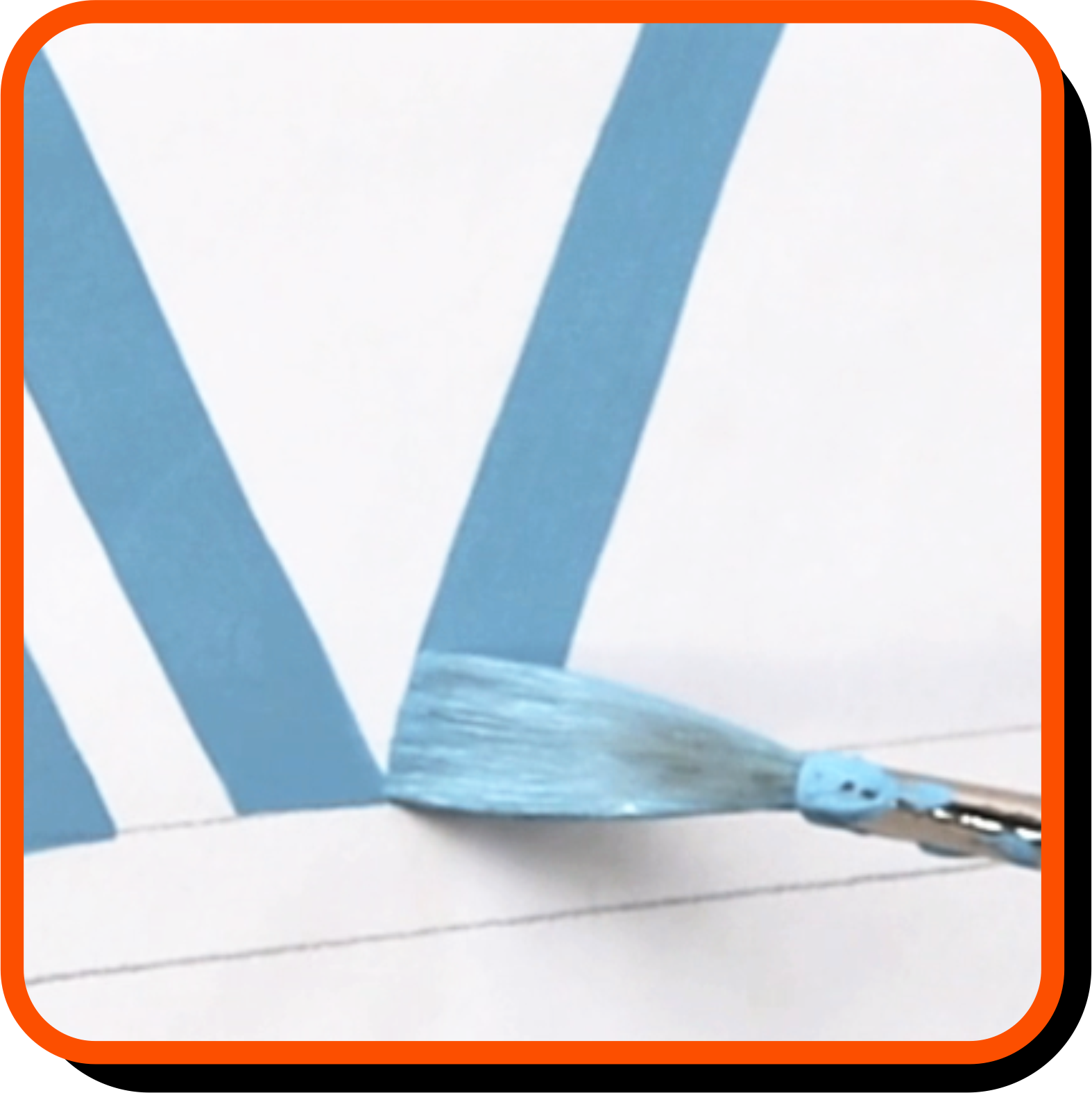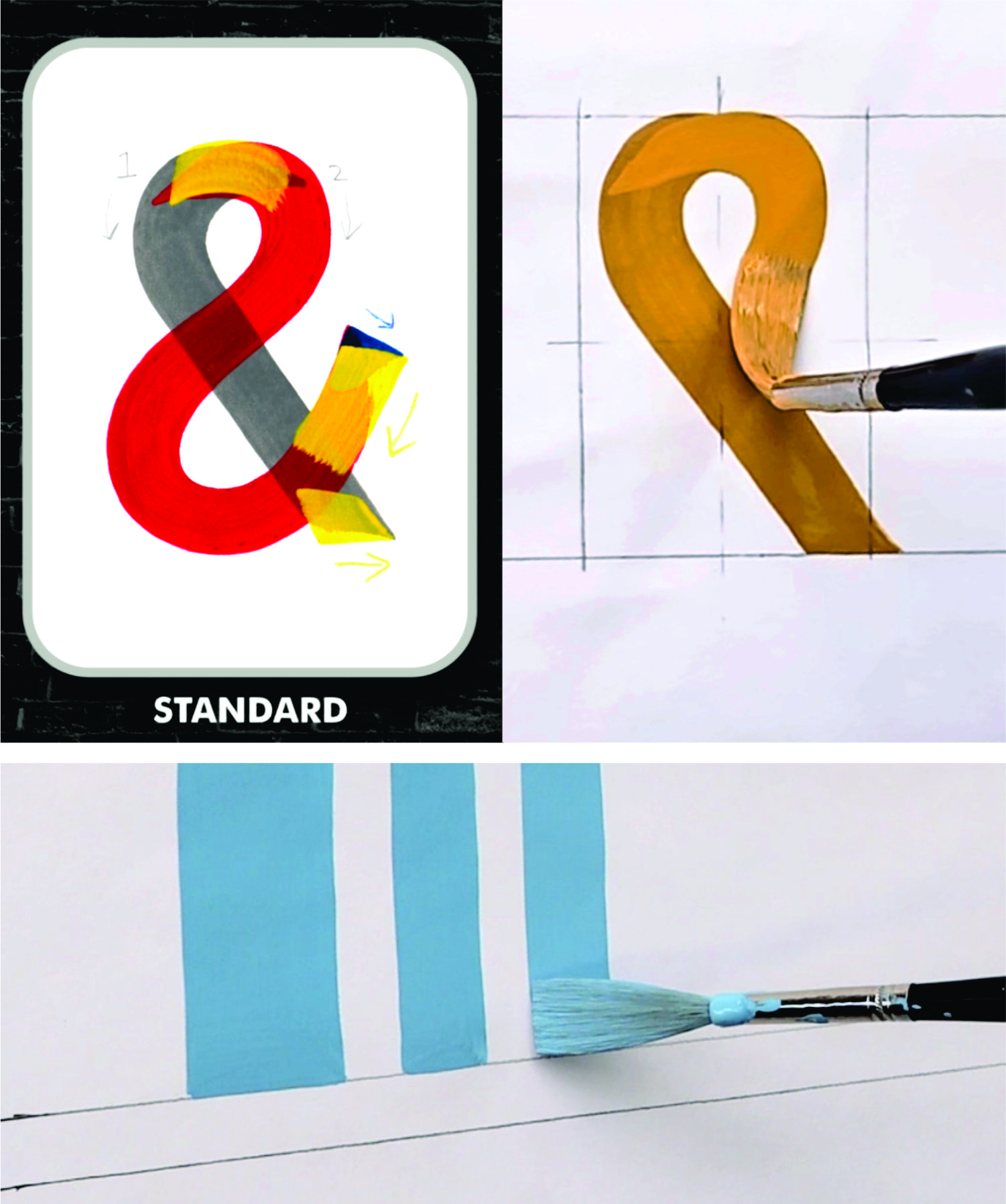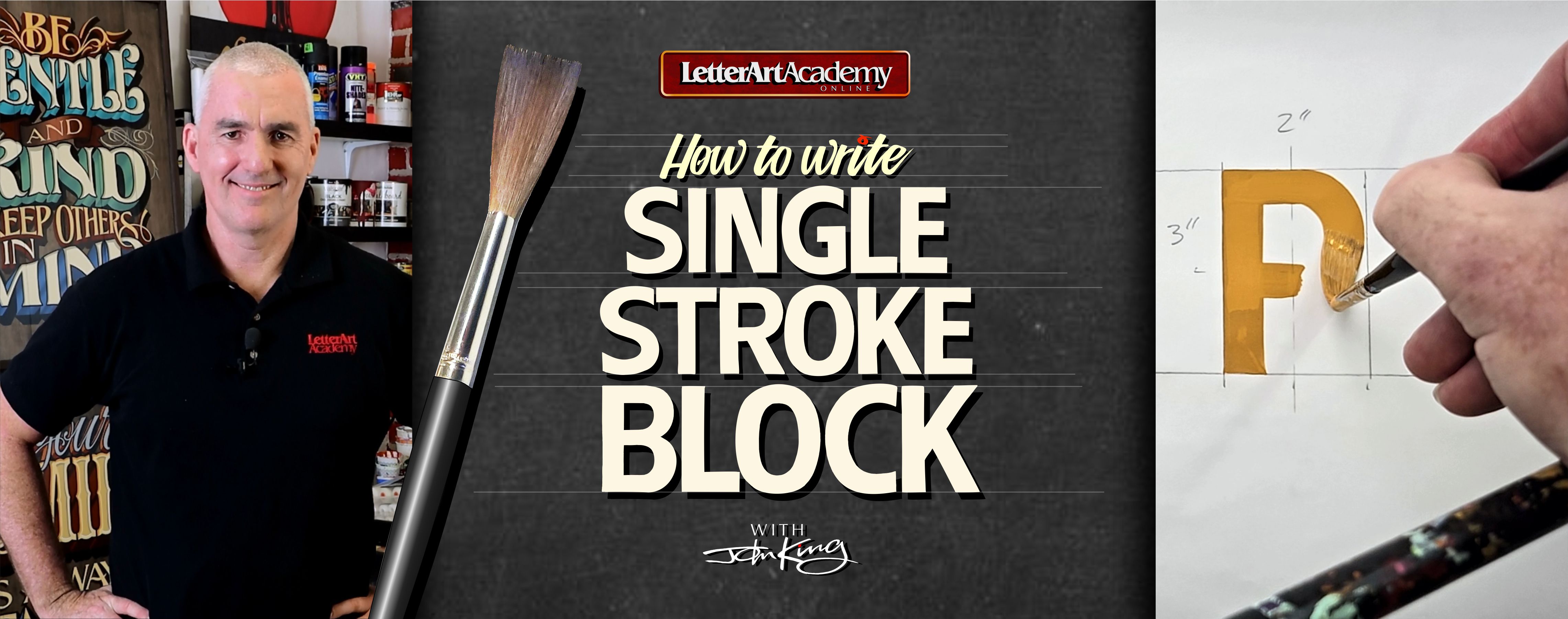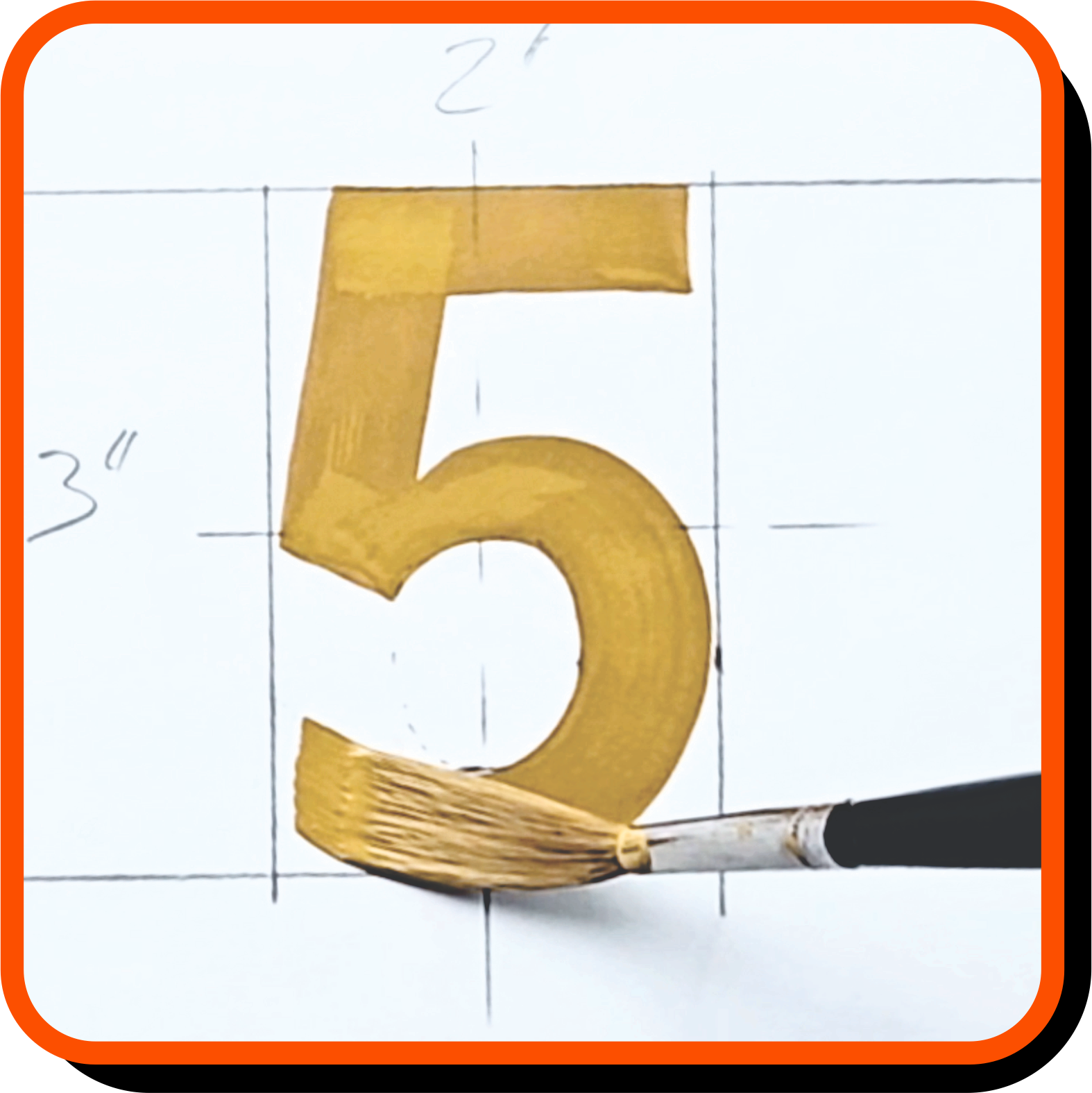
LEARN TO WRITE A TRADITIONAL SIGNWRITER'S SINGLE STROKE BLOCK LETTER ALPHABET.
CAPITALS, NUMERALS and the Ampersand with a focus on Brush Techniques and Letter Structure.
The ability to write Single Stroke Block Lettering is the cornerstone of a signwriter's skillset.
"How to Write Single Stroke Block" is designed for Signwriters and Lettering Artists who have worked on their Basic Signpainter's Brush Skills and are ready to take the next step in learning to write a Traditional Signpainter's Single Stroke Block Letter Alphabet.
Learn the tricks to create each Capital Letter, Numeral and Ampersand using correct Stroke Weight Distribution, Letter Proportions and various Cornering Techniques.
After practicing the methods you'll learn in this course using John's simple framework method, you'll soon be able to write a Single Stroke Block Alphabet freehand without the need for time consuming markouts, which is an invaluable skill for a signwriter.
CORNERING UP
Learn various Cornering Techniques for Single Stroke Letters.
LETTER STRUCTURE
Focus on correct Letter Structure, Widths, and Proportions.
WRITING THE ALPHABET
Detailed tutorials of writing each Capital Letter and Numeral.
After completing this course you will have learned how to write a Traditional Signwriter's Single Stroke Block Letter Alphabet and Numerals focusing on Correct Letter Structure, Widths and Proportions, along with various Cornering Up Techniques.